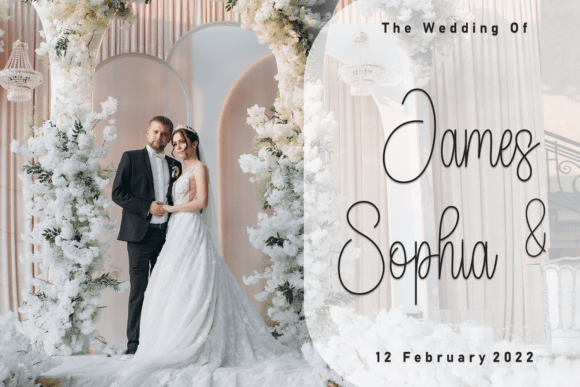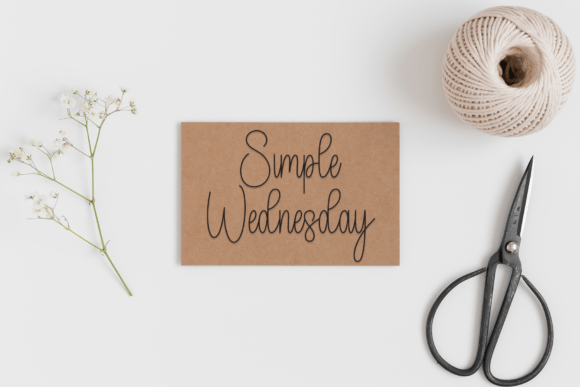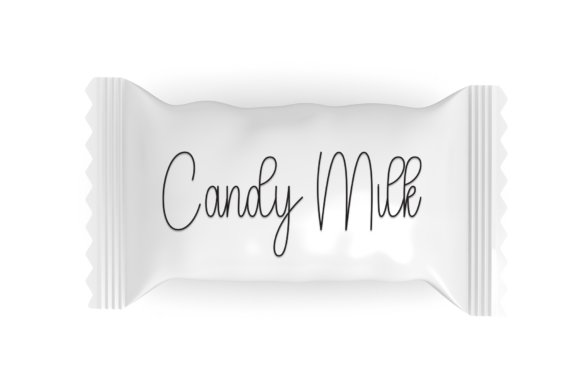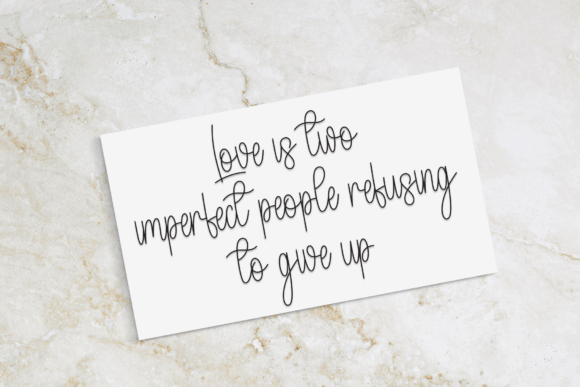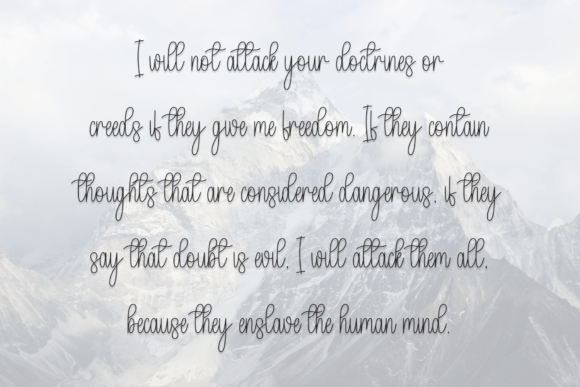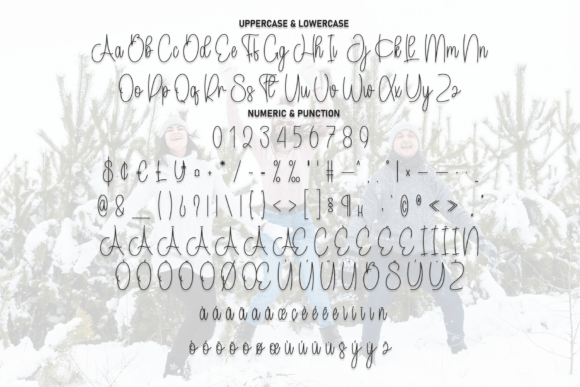
Introduction to Festival Winterland Font
Welcome the charm and affection of our handcrafted display font – a delightful and cheerful typography sensation that perfectly captures a joyful spirit.
It’s friendly, sweet, and irresistibly cute, making every word feel like a personal, heartwarming note from an old friend Known for its whimsical flair, this font shines brightly on wedding invitations and greeting cards, infusing an inviting warmth and fun touch to each design.
Key Features of Festival Winterland Font